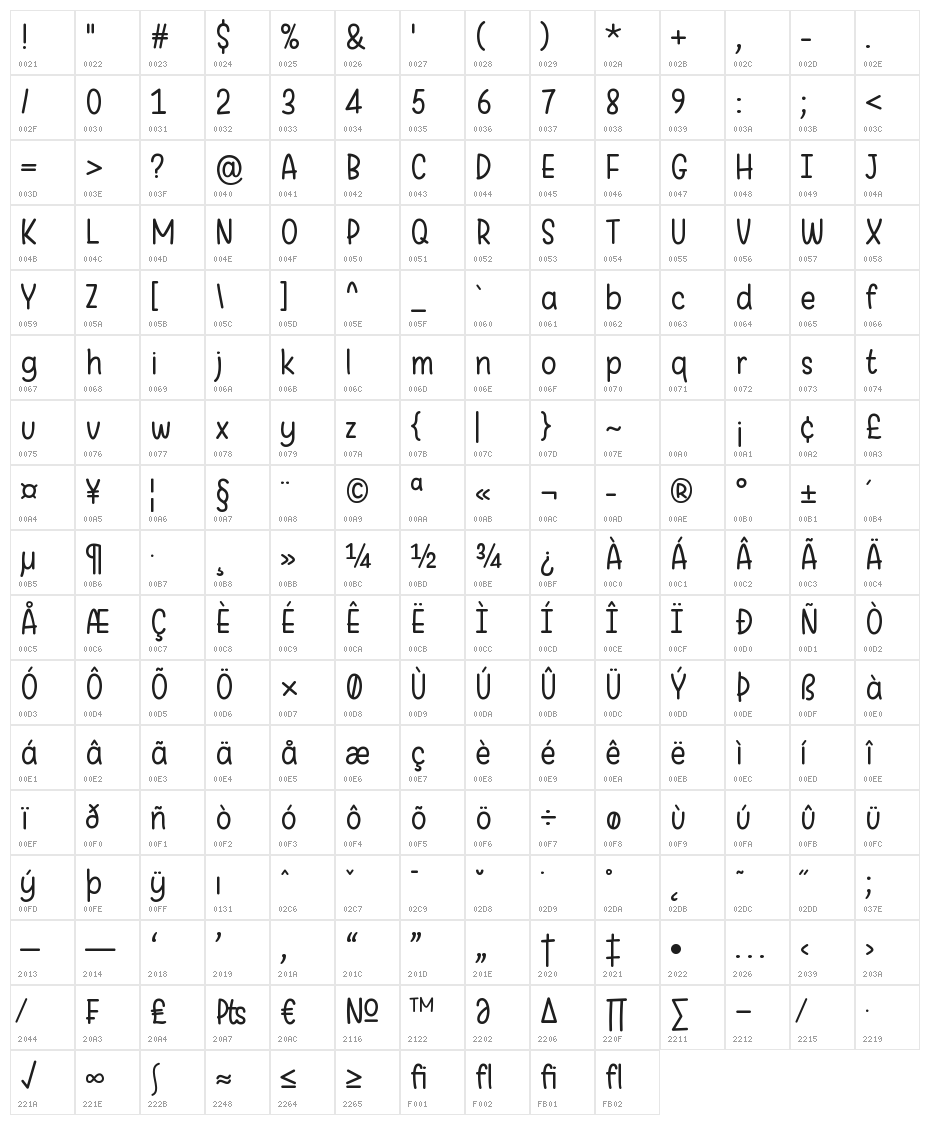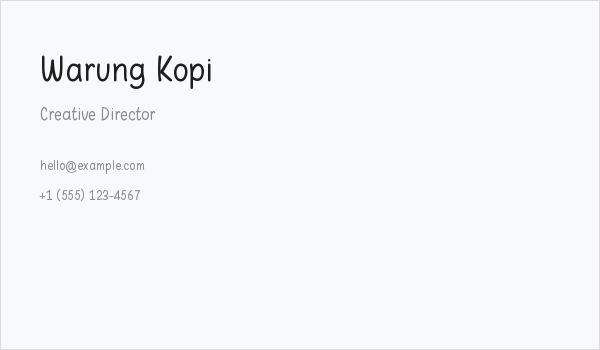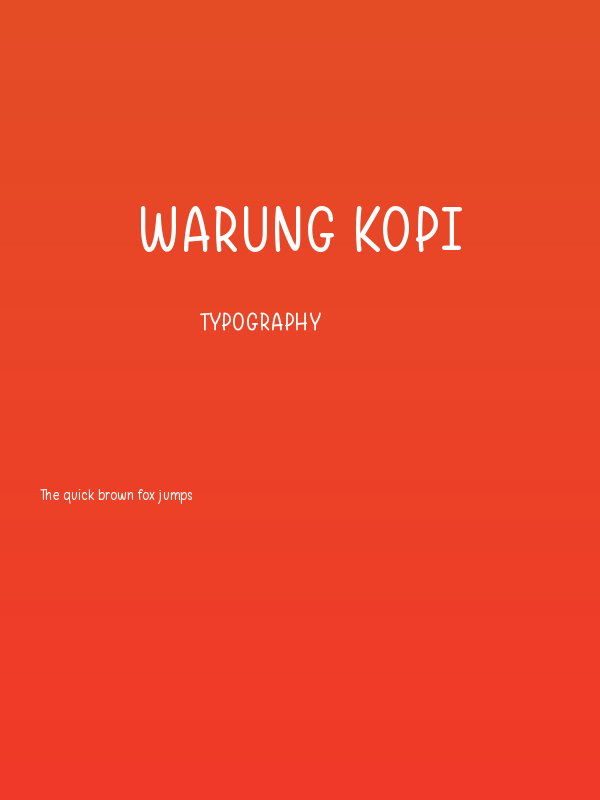
Warung Kopi Font
Warung Kopi Description
This playful and casual font features rounded, hand-drawn characters that exude a friendly and approachable vibe. The letters are slightly irregular, giving them a whimsical and informal appearance. The strokes are consistent in width, providing a uniform look across all characters. This font includes a full set of uppercase and lowercase letters, numerals, and a variety of special characters, making it versatile for different uses. Its simplicity and charm make it suitable for projects that require a personal touch.
| Use Case | Headlines, Informal text, Branding |
| Proposed Projects | Ideal for children's books, greeting cards, casual branding, and social media graphics. |